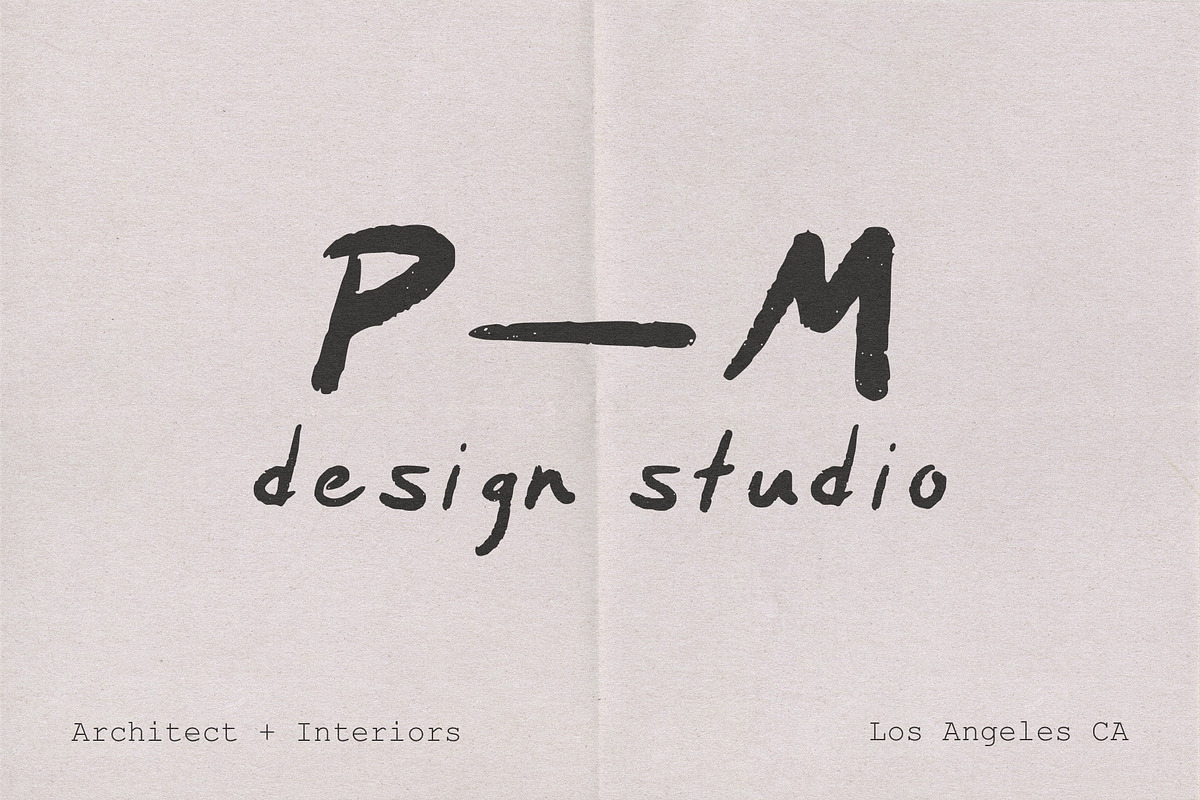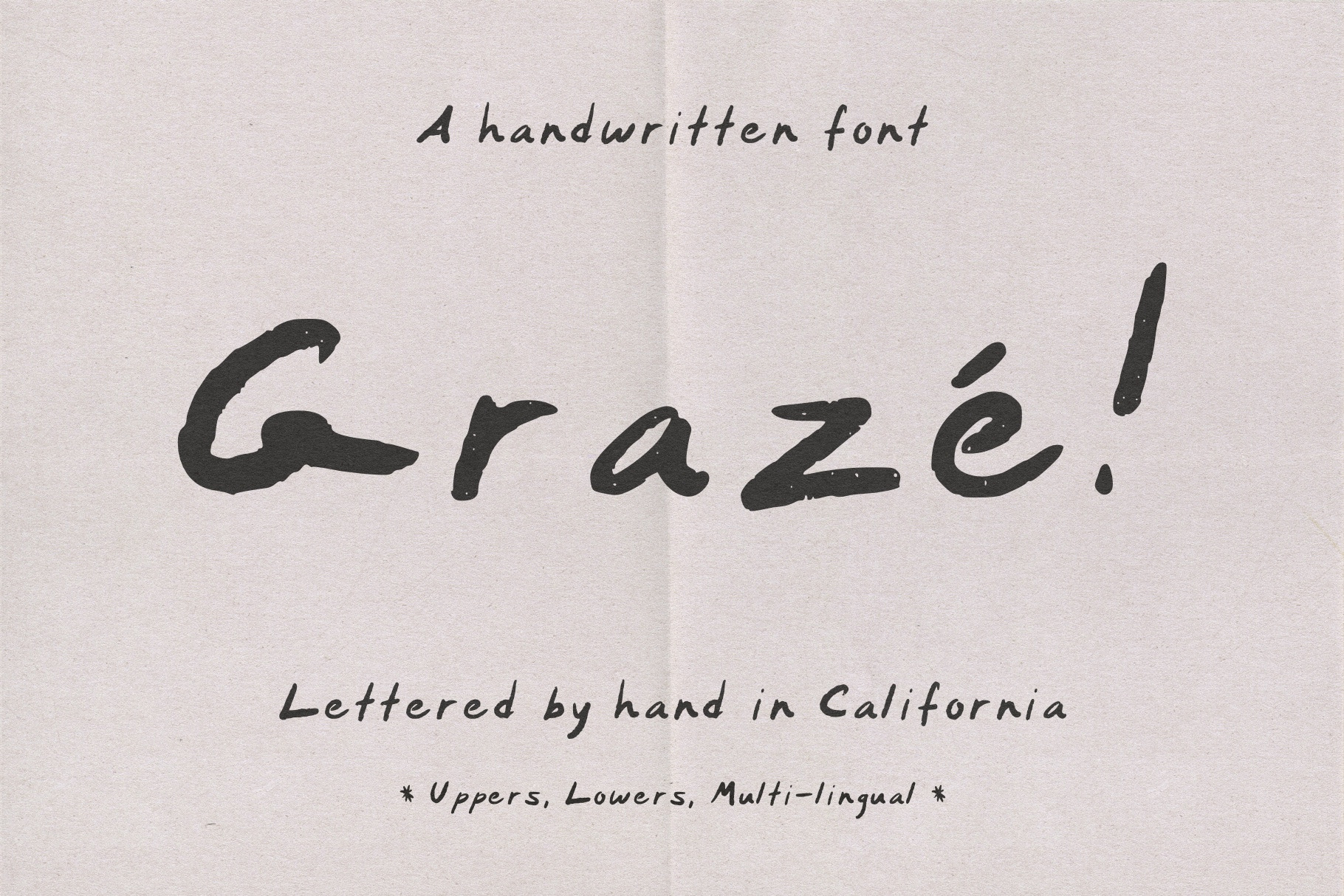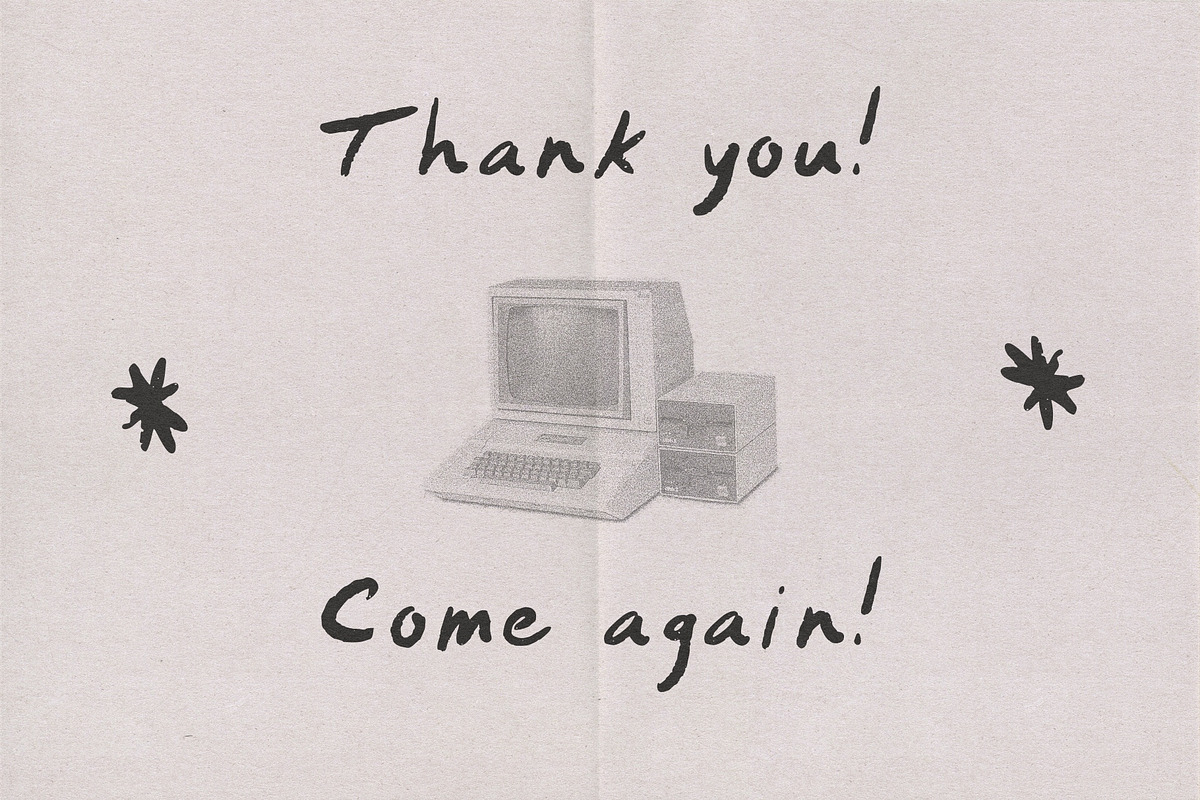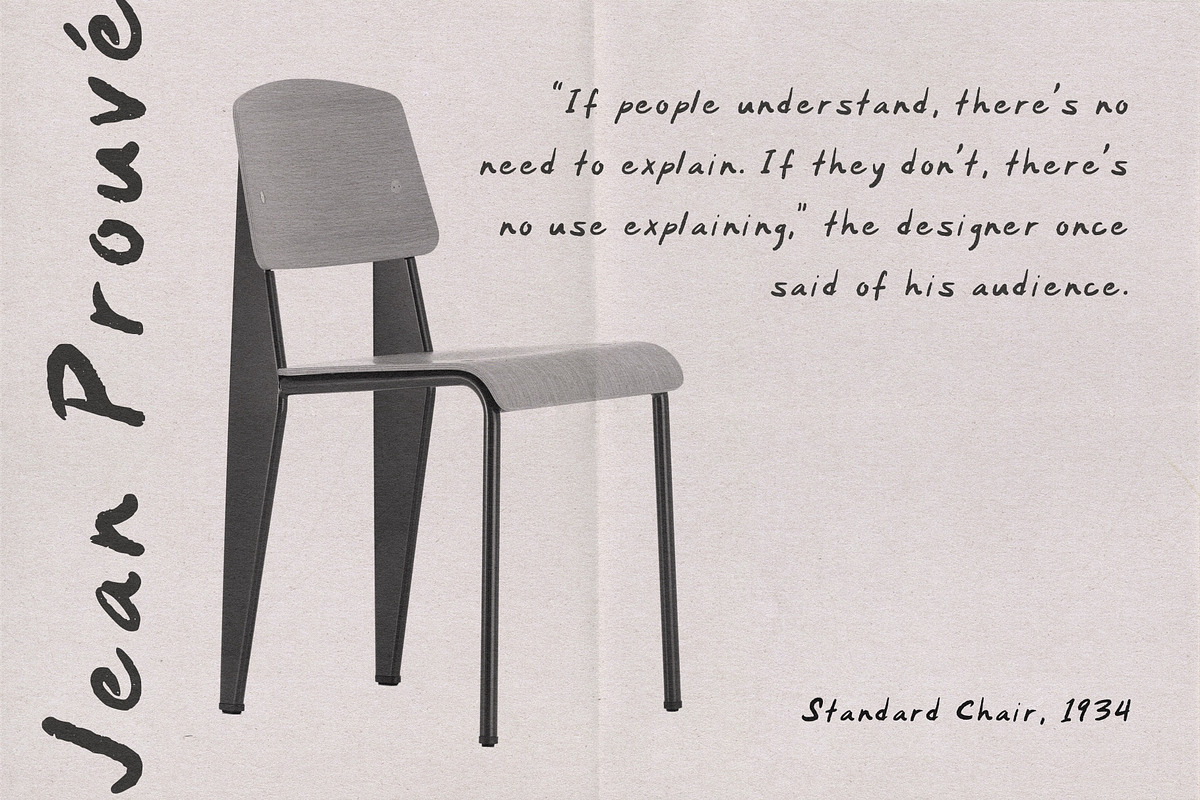
Grazé - Handwriting Font
Grazé—it looks Italian and sounds French, but it’s actually a made up word for this fully functional typeface.
This is a laid back handwriting font that can add subtle texture to any project. I recommend it for branding, logos, stationary, and more.
- Uppers & Lowers
- Standard Latin characters, numerical, punctuation, mathematical symbols, all accent marks